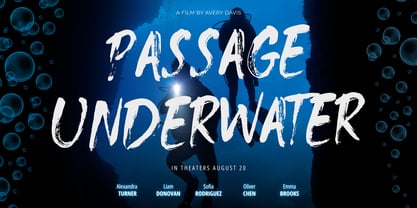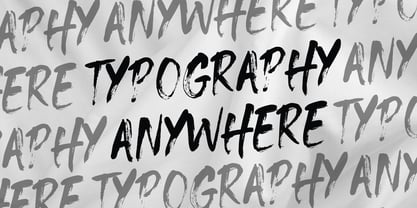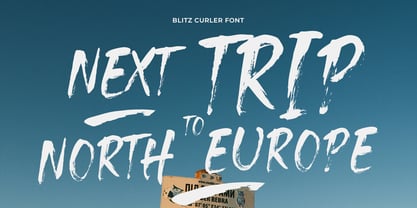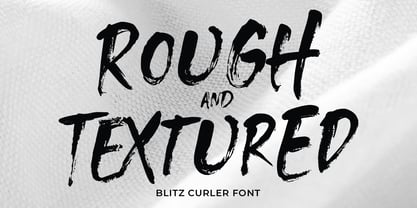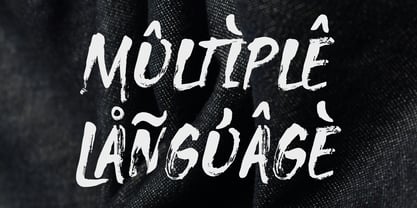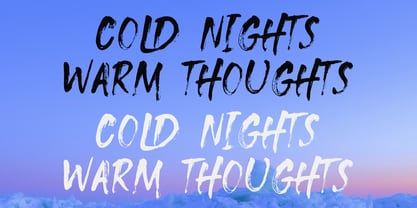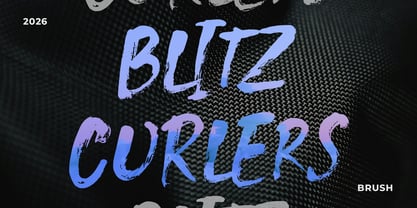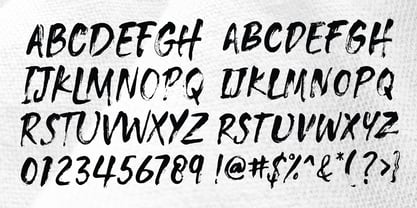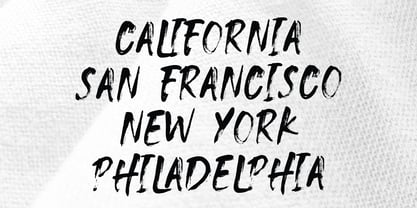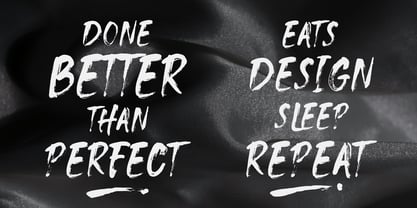
Blitz Curlers
La familia tipográfica Blitz Curlers fue diseñada por Yusliana M Isa y publicada por Gian Studio. Blitz Curlers contiene 1 estilos. Más información sobre esta familia
BLITZ CURLERS – Authentic Textured Brush Font
Unleash raw energy and urban grit into your designs with Blitz Curlers, a high-octane brush font crafted for bold creators. This typeface captures the untamed spirit of street culture, making it the perfect choice for designs that refuse to blend in.
Why You’ll Love It:
True-to-Life Texture: Built with hyper-realistic dry-brush details. Every stroke retains the natural splatters and fiber textures of a real paintbrush, giving your work an authentic, handcrafted depth.
Bold Urban Aesthetic: Featuring striking, high-impact all-caps characters, this font channels the fierce energy of action sports, streetwear branding, and modern graffiti art.
Flawless Grit & Grunge: The perfect balance between structured anatomy and rough, distressed edges. It delivers a rugged, casual look without sacrificing legibility.